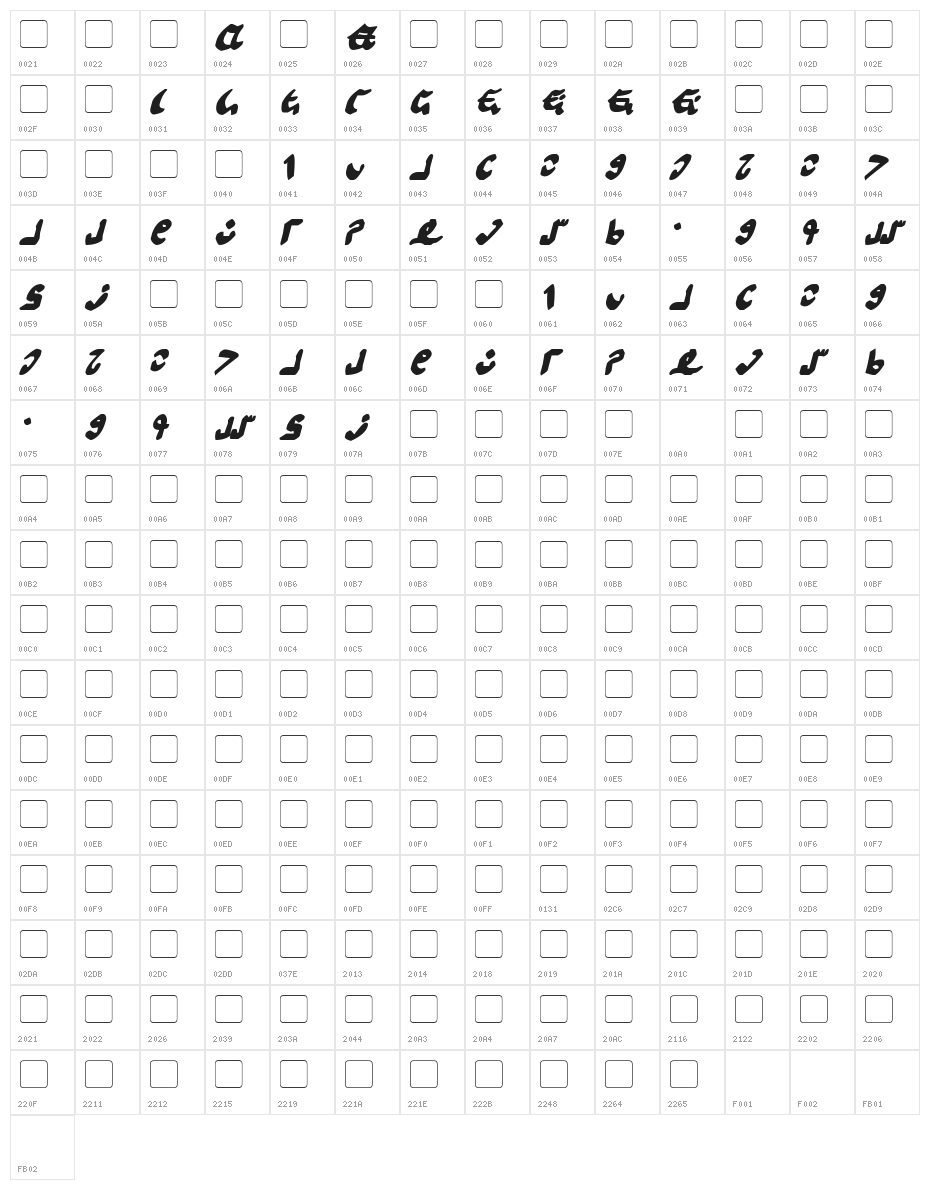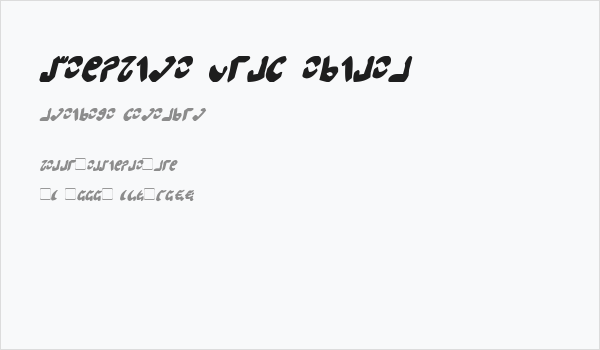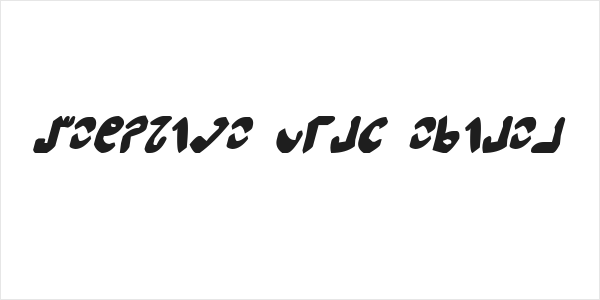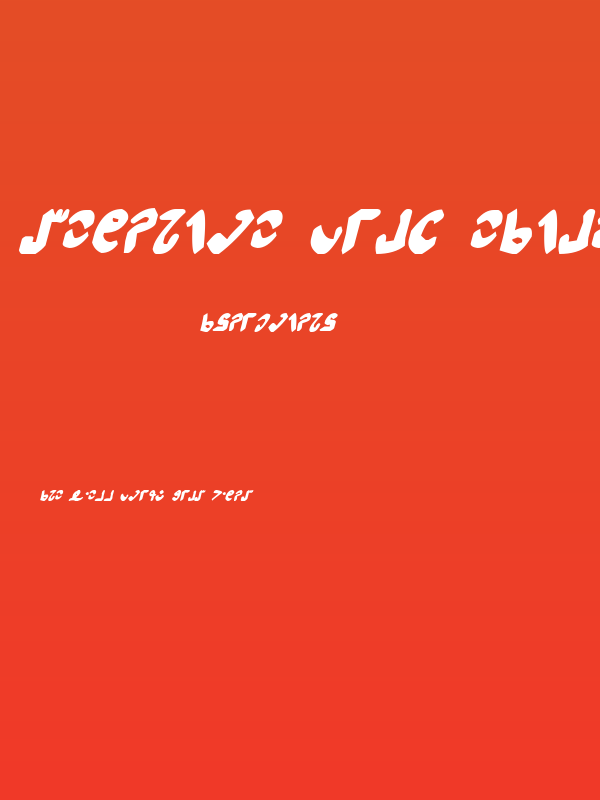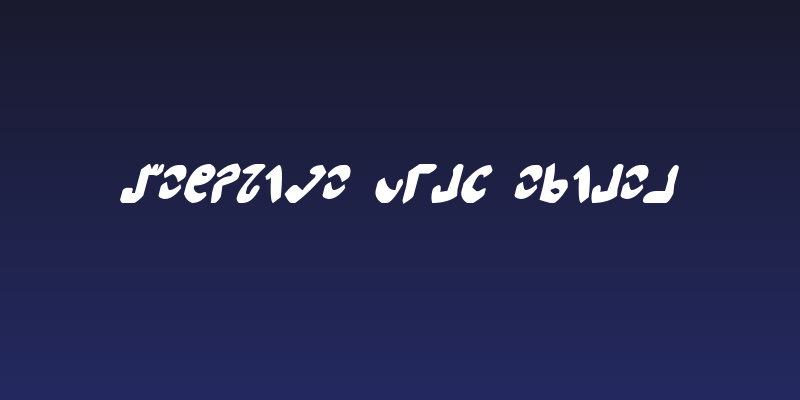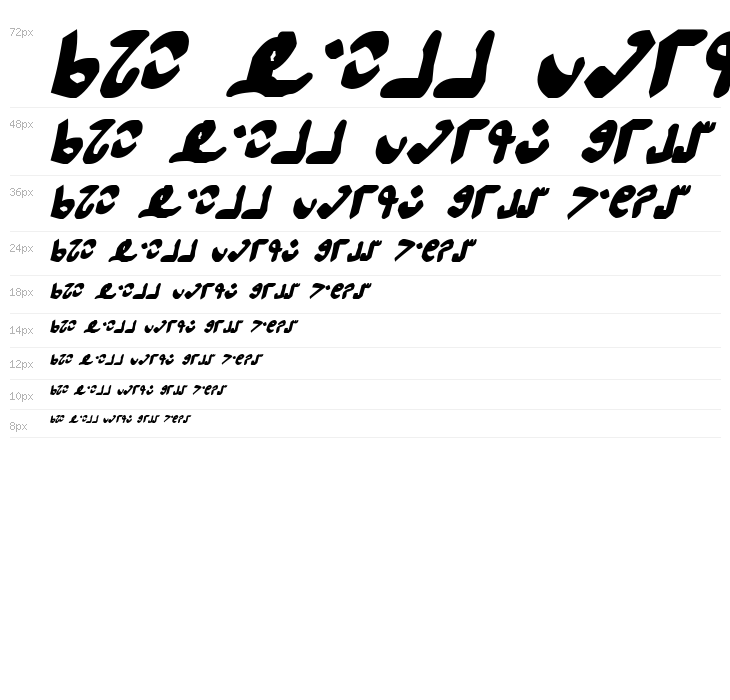
Semphari Bold Italic Font
Semphari Bold Italic Description
This font exhibits a bold and italicized style with a distinctive, flowing script that combines both elegance and modernity. The characters are thick and well-defined, with a slight slant that adds a dynamic feel. The strokes are smooth and connected, giving it a cohesive look. The uppercase letters are prominent and commanding, while the lowercase letters maintain a consistent flow. Numbers and special characters are designed to match the overall aesthetic, ensuring uniformity across all text. The font's boldness makes it stand out, while the italic style adds a touch of sophistication.